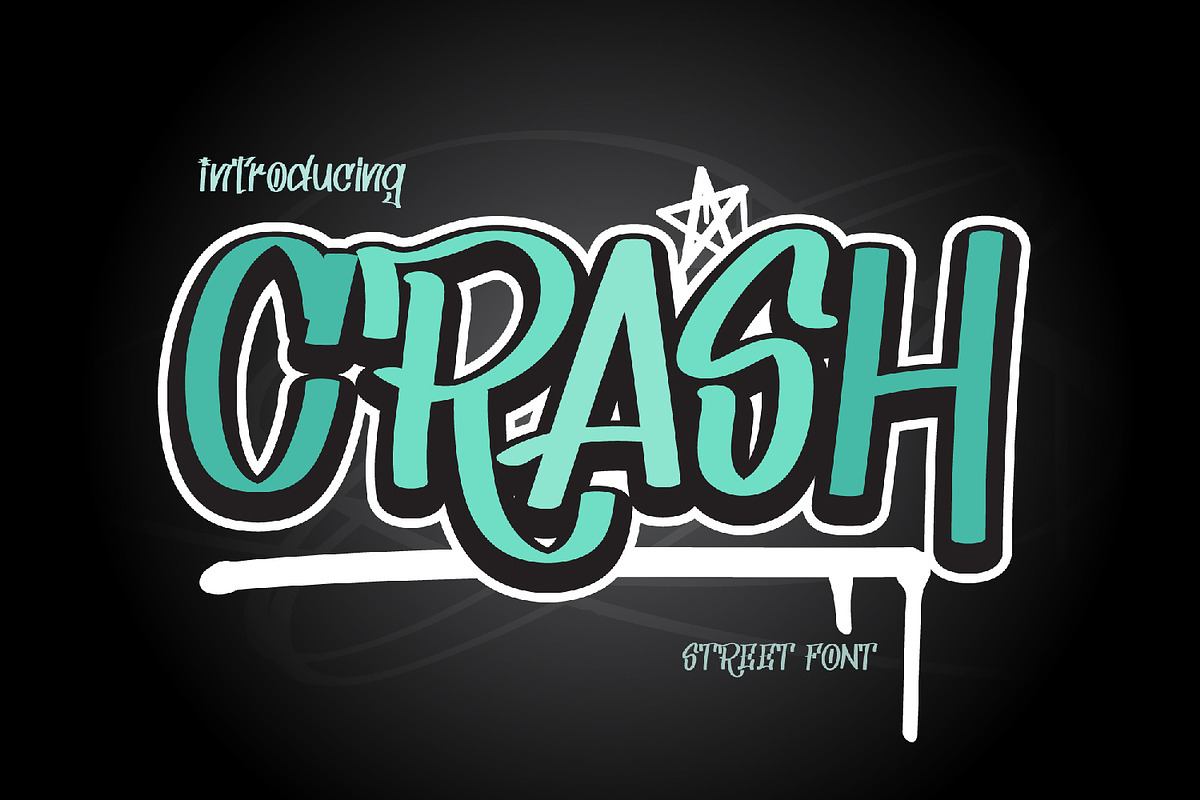
Crash Font Free Download is a bold and explosive display typeface that’s built to make an impact. With sharp angles, distressed textures, and a raw, chaotic energy, this font is perfect for action-packed posters, music album covers, extreme sports branding, and edgy streetwear designs.
Crash Font Free Download captures the essence of motion, power, and rebellion—making it ideal for projects that refuse to go unnoticed. Its loud and aggressive look is a great fit for headlines, event flyers, or any design that thrives on intensity and attitude.
It performs strongly in both print and digital formats, delivering a punch wherever it's used. Feel free to test it out in personal mockups or concept art, but keep in mind that a commercial license is required for professional use. Bring noise, edge, and visual power to your designs with Crash Font.